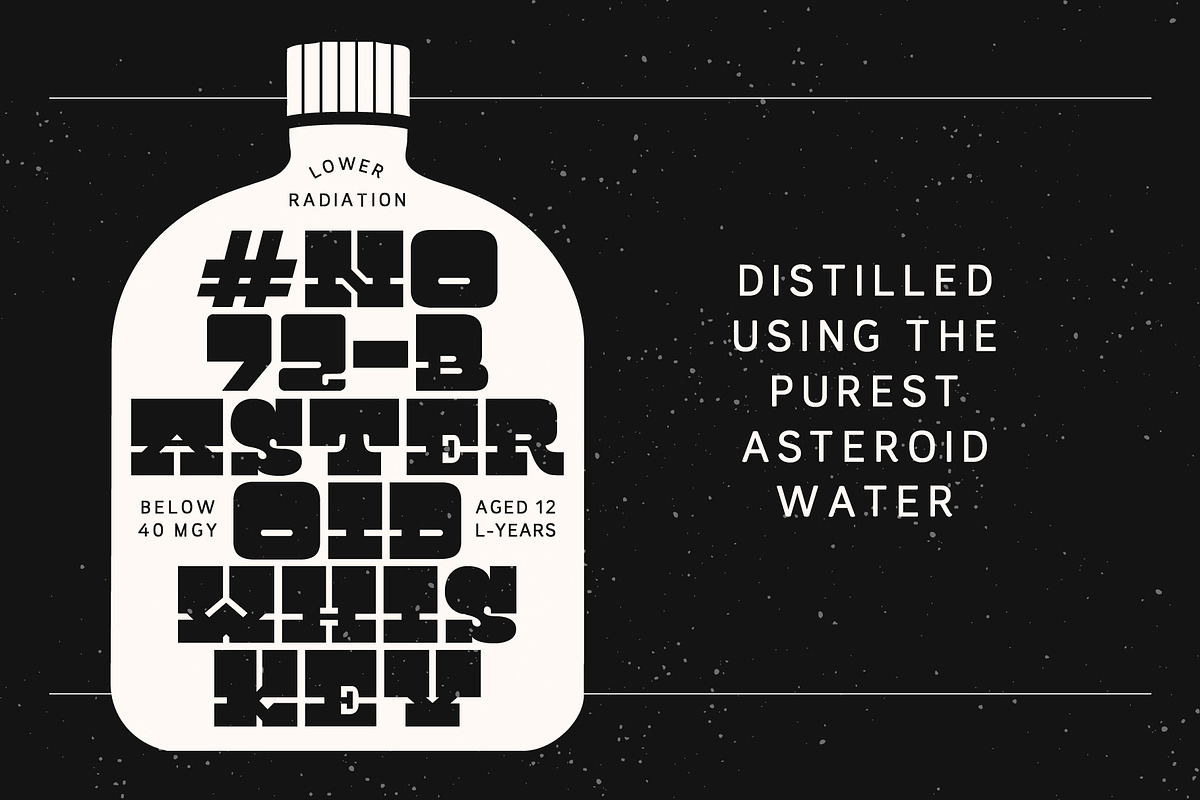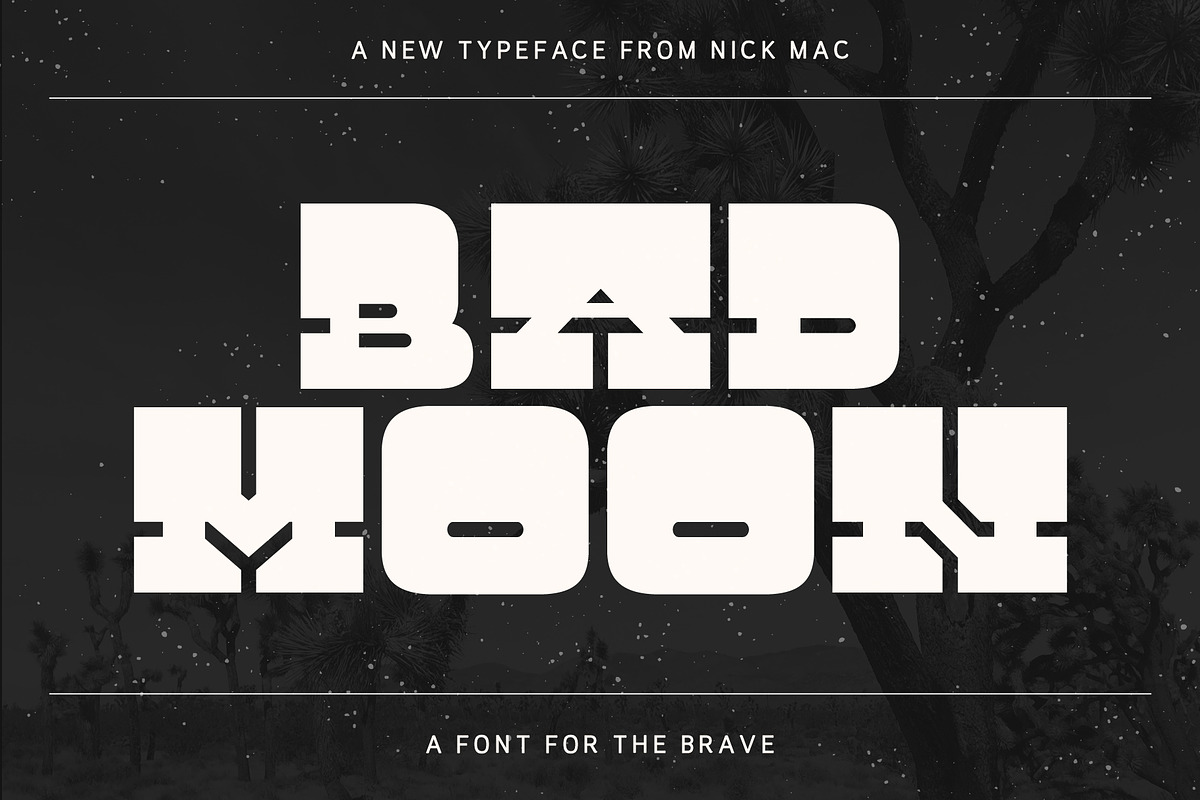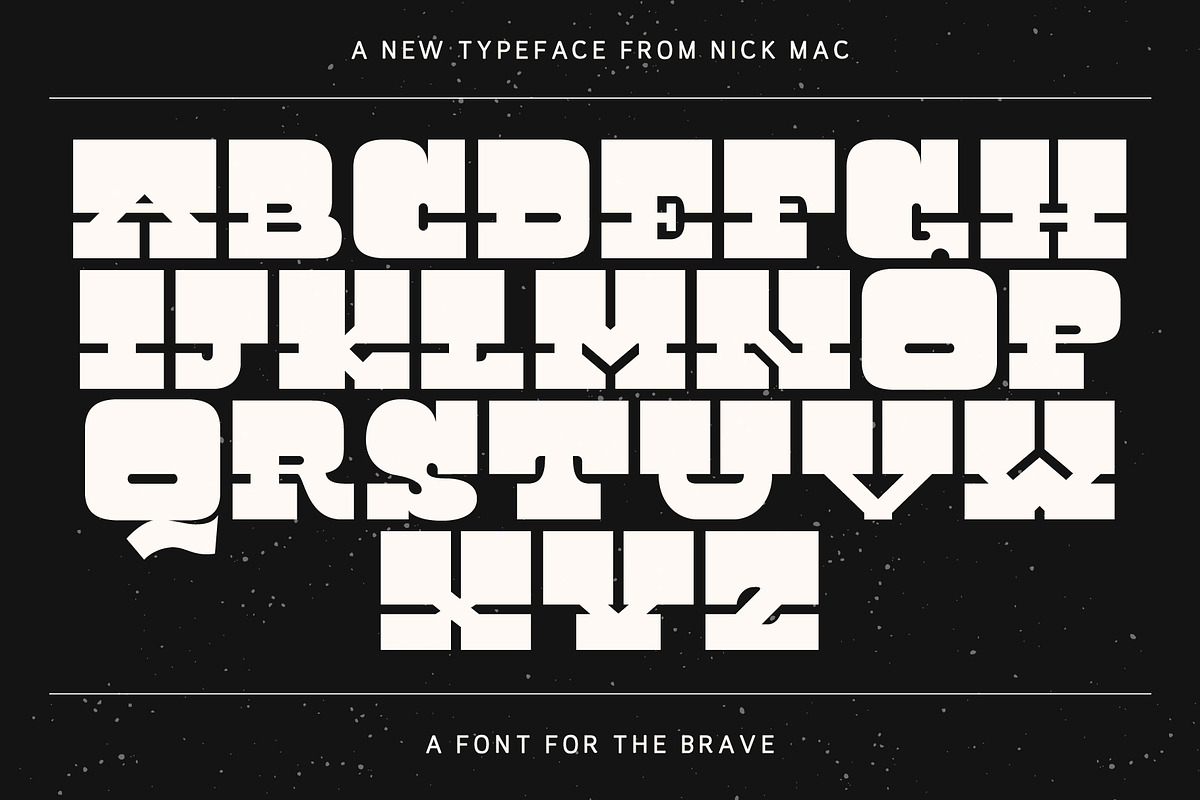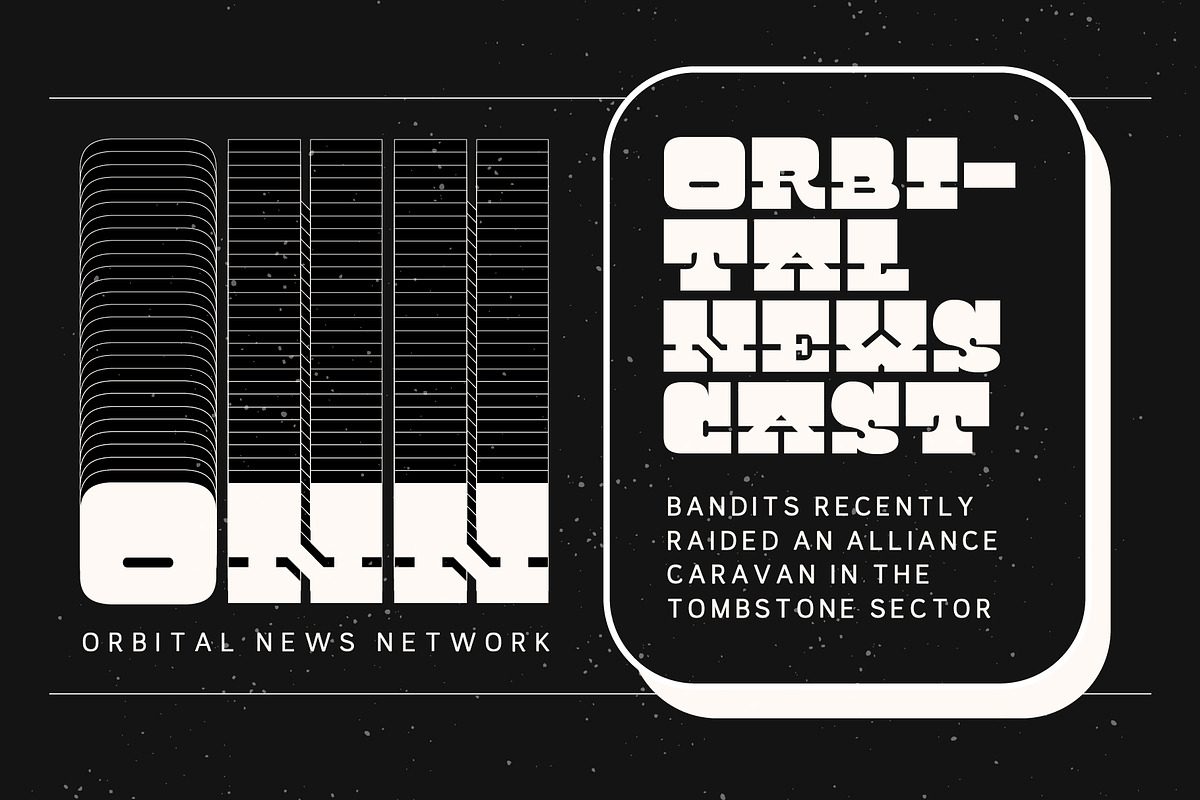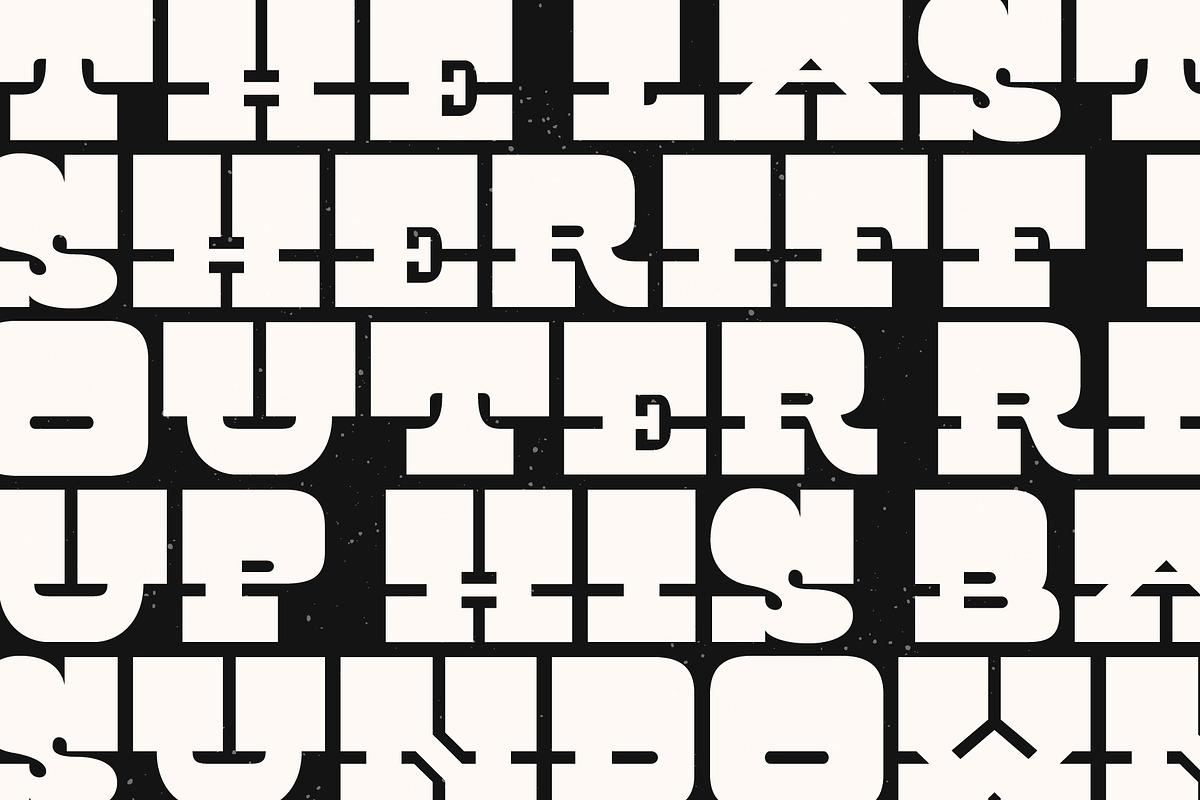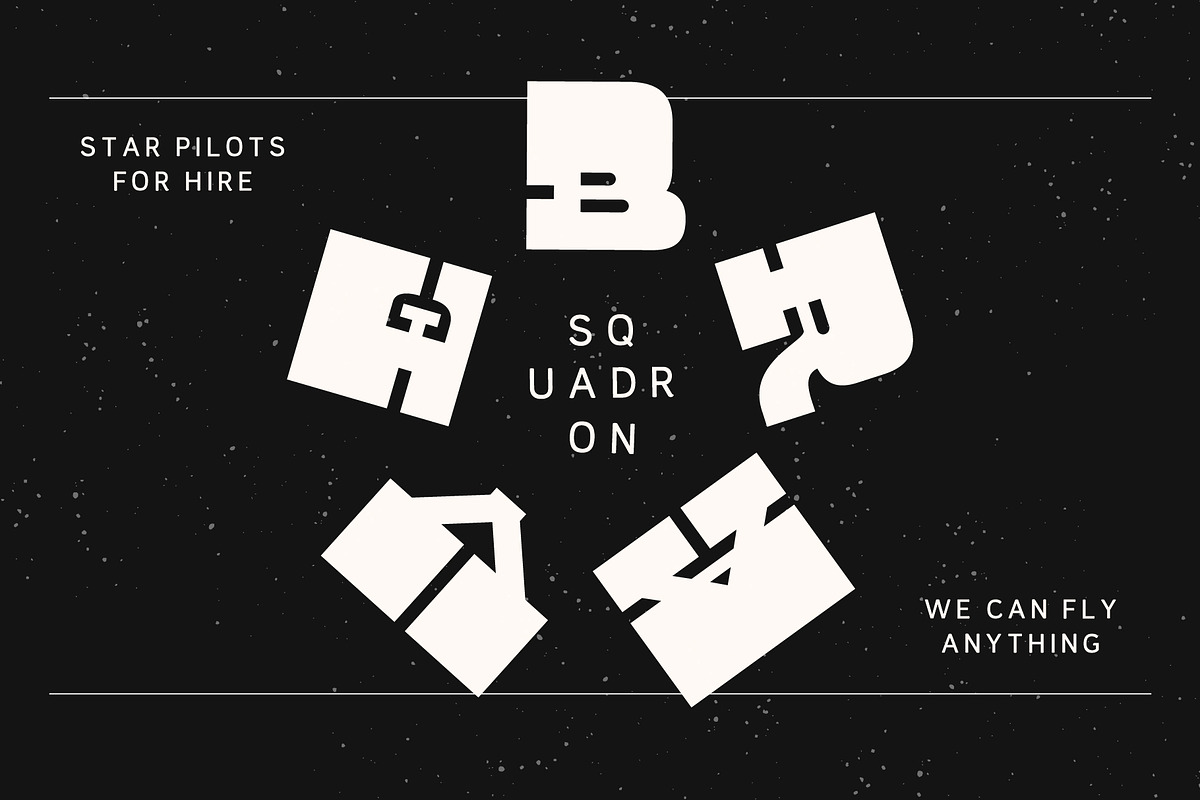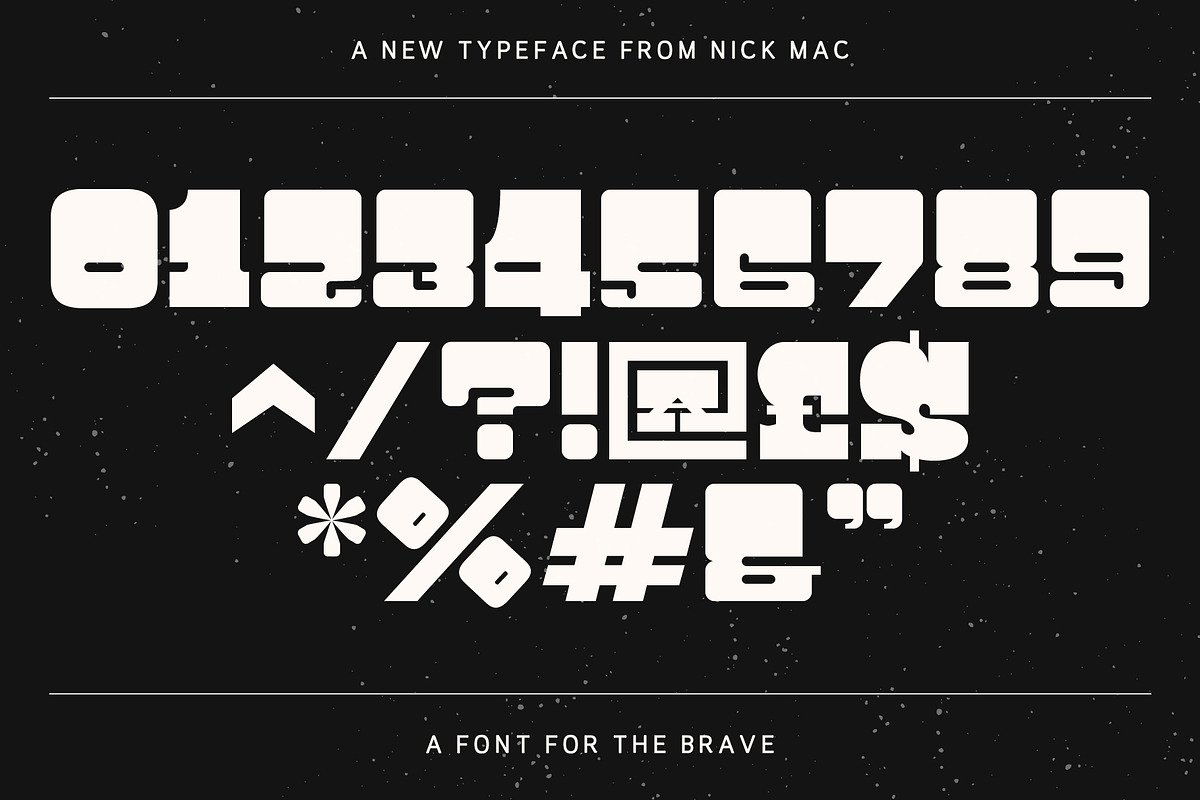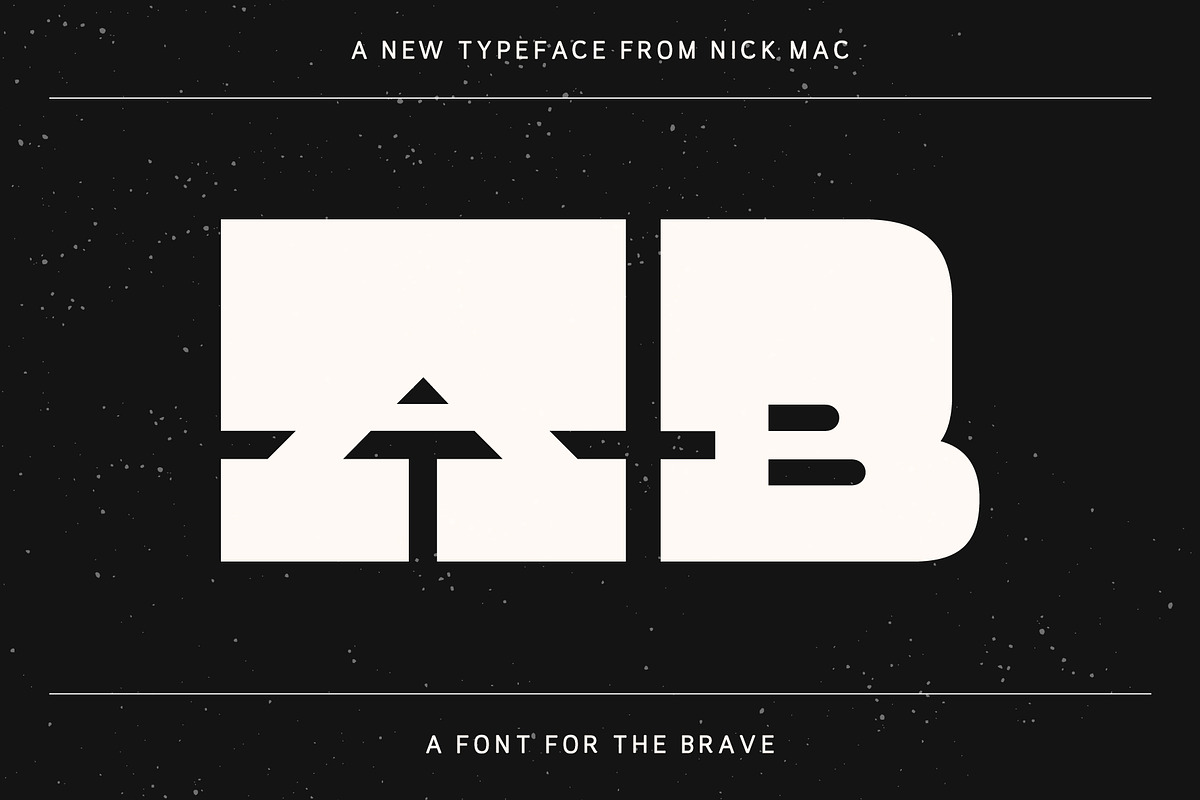
Badmoon Slab - A Space Western font
Badmoon is a bold display slab serif built for impact. Chunky, all-caps letterforms are cut through with precise horizontal notches that give the font its signature sci-fi western edge. It's frontier wanted poster meets deep space broadcast. It's heavy enough to own a poster and characterful enough to make a logo unforgettable.
Built for posters, album artwork, apparel, game titles, branding and anywhere you need type that doesn't whisper.